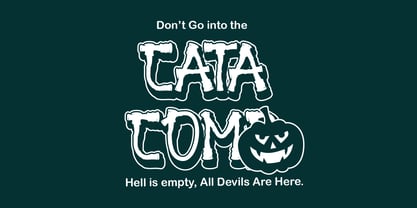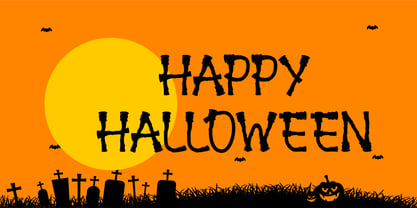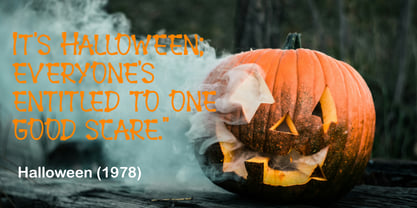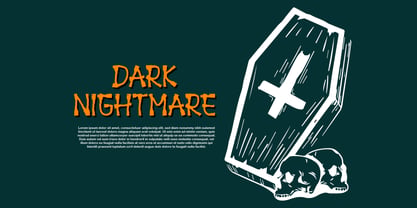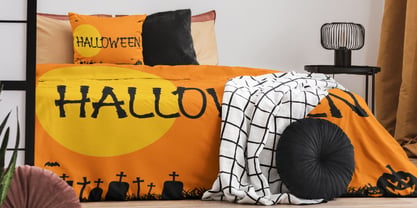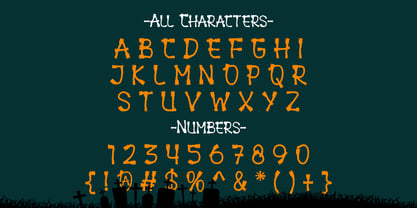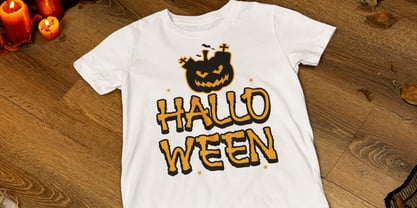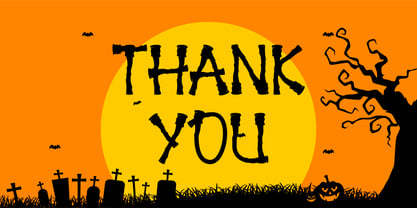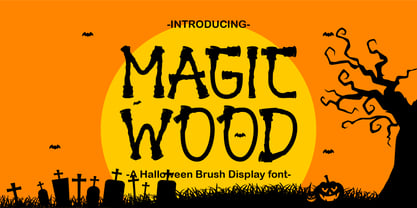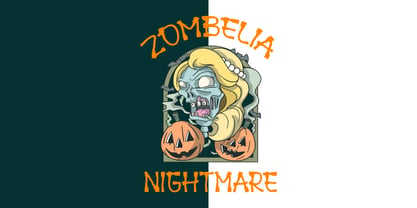
Magic wood Brush
by Patlot Digital Studio
The Magic wood Brush Font Family was designed by Gugun Gunawan and published by Patlot Digital Studio. Magic wood Brush contains 1 styles. More about this family
Magic Wood Brush is a spooky Halloween-themed display font, inspired by a witch’s wand.
From spooky projects to spooky signs, from fun trick-or-treat accessories to spectral party invitations,
Magic Wood Brush is the perfect spooky touch for your Halloween needs. And it doesn’t stop there! You can enhance your spooky porch decor or enhance your mysterious outfit with this spooky font. Harness the magic of the Magic Wood Brush font to truly enchant your Halloween celebration.
Designers: Gugun Gunawan
Foundry: Patlot Digital Studio